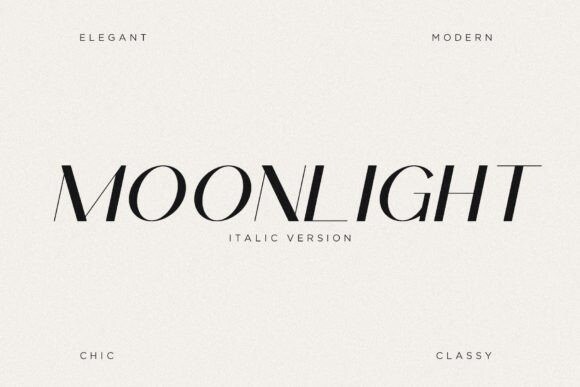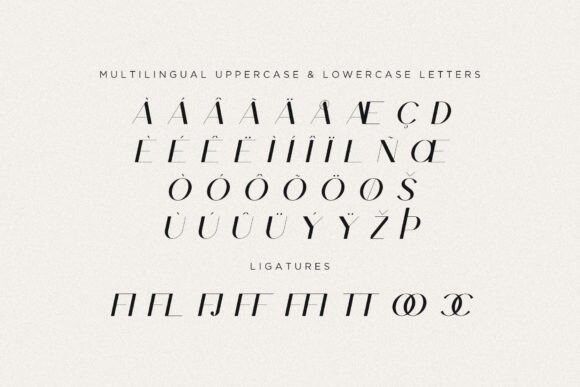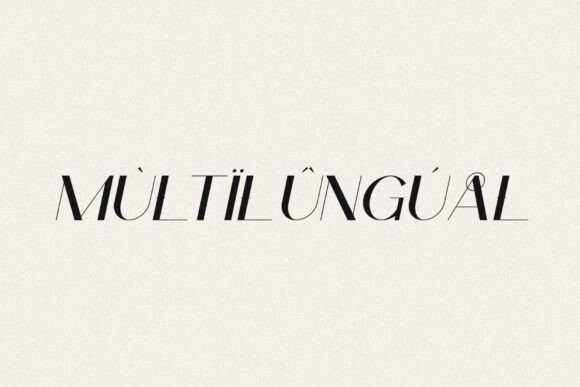
Moonlight Font
Moonlight Font is an elegant, modern, chic, and classy font. Moonlight has a simple and unique style with standard ligatures. You can use it for various projects, such as blog posts, logos, branding, ads, invitations, greeting cards, planners, photo albums, decorations, and much more. Add it to any of your designs, and enjoy the results!